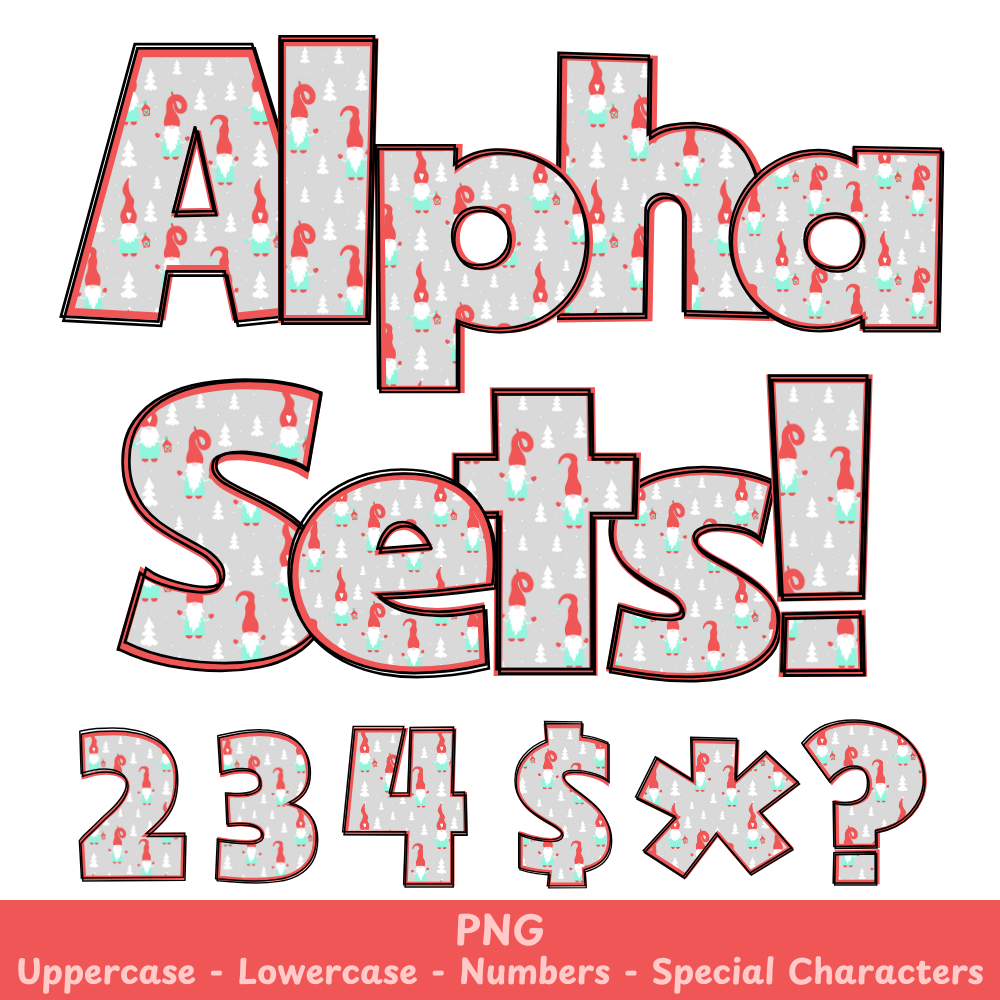
Mint Green Christmas Gnome PNG Font
Mint Green Christmas Gnome Alpha Set PNG Font Pack
Get creative with Mint Green Christmas Gnome PNG Font, perfect for your crafting needs. Add a touch of whimsy to your projects with this versatile font that is compatible with sublimation and more. Bring some holiday cheer with every letter!